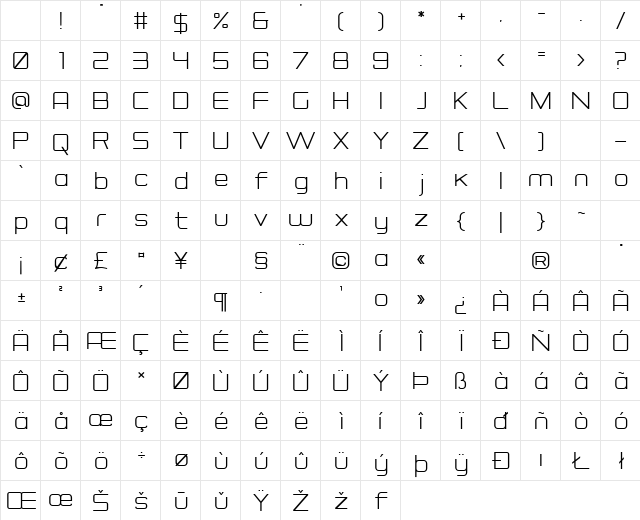
Complete Rogueland Free Regular glyph index. Displaying only characters natively supported by Rogueland Free Regular font.
Rogueland Free is a composed and adaptable typeface that performs quietly and consistently across a wide range of design contexts.